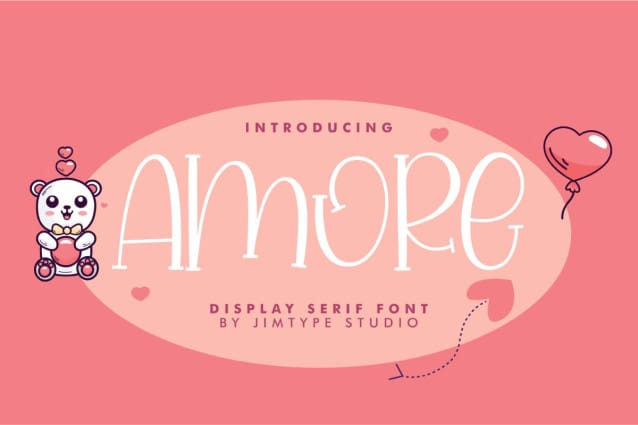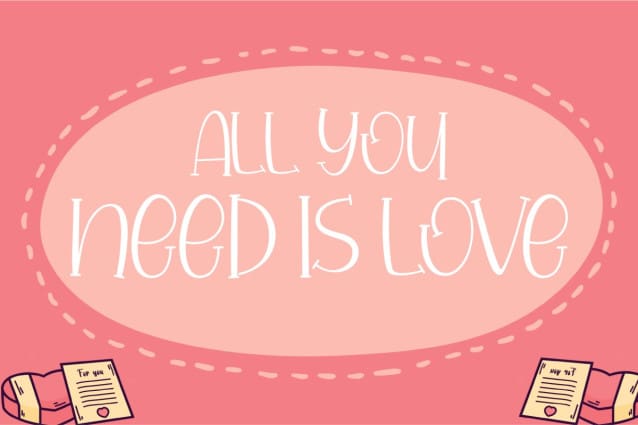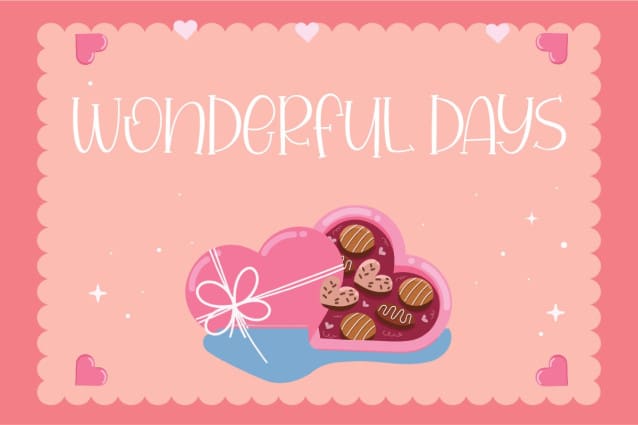
Amore Playful Font
Amore Playful Font, a delightful marriage of sophistication and playfulness. Amore Font redefines cuteness with a serif twist. The playful serifs add character and charm, creating a delightful visual experience. Choose Amore Font for a captivating design journey!